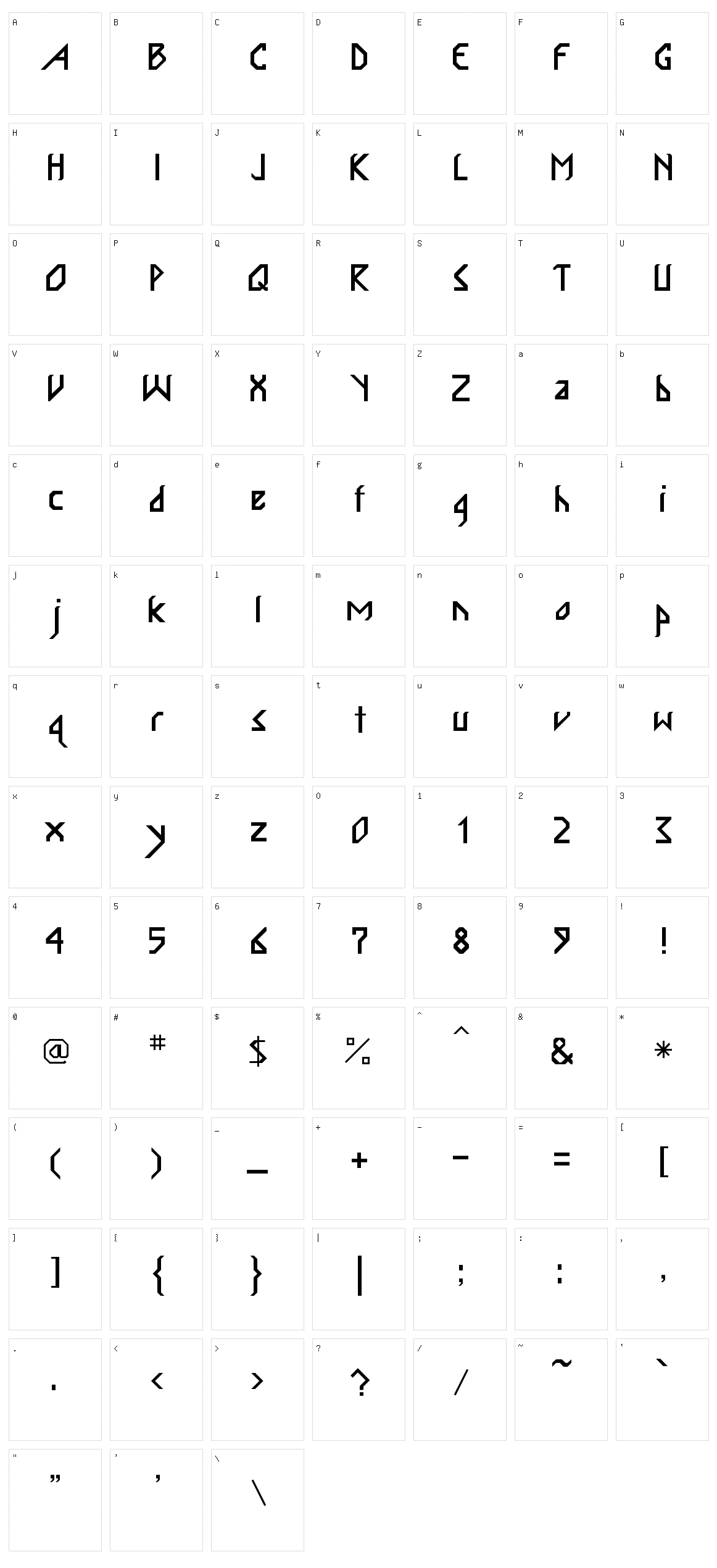
InkaBod
Designed by: Lorvad
BlackForest and Inkabod are designed without any curves. With one or two exceptions all angles are multiples of 45 degrees. BlackForest has an old world German feel. It seems to look best about 24 points. InkaBod is based on the bitmapped font Nordic. On the LaserWriter it looks great at 14 points and above. On the ImageWriter, try it at 18 points and larger.